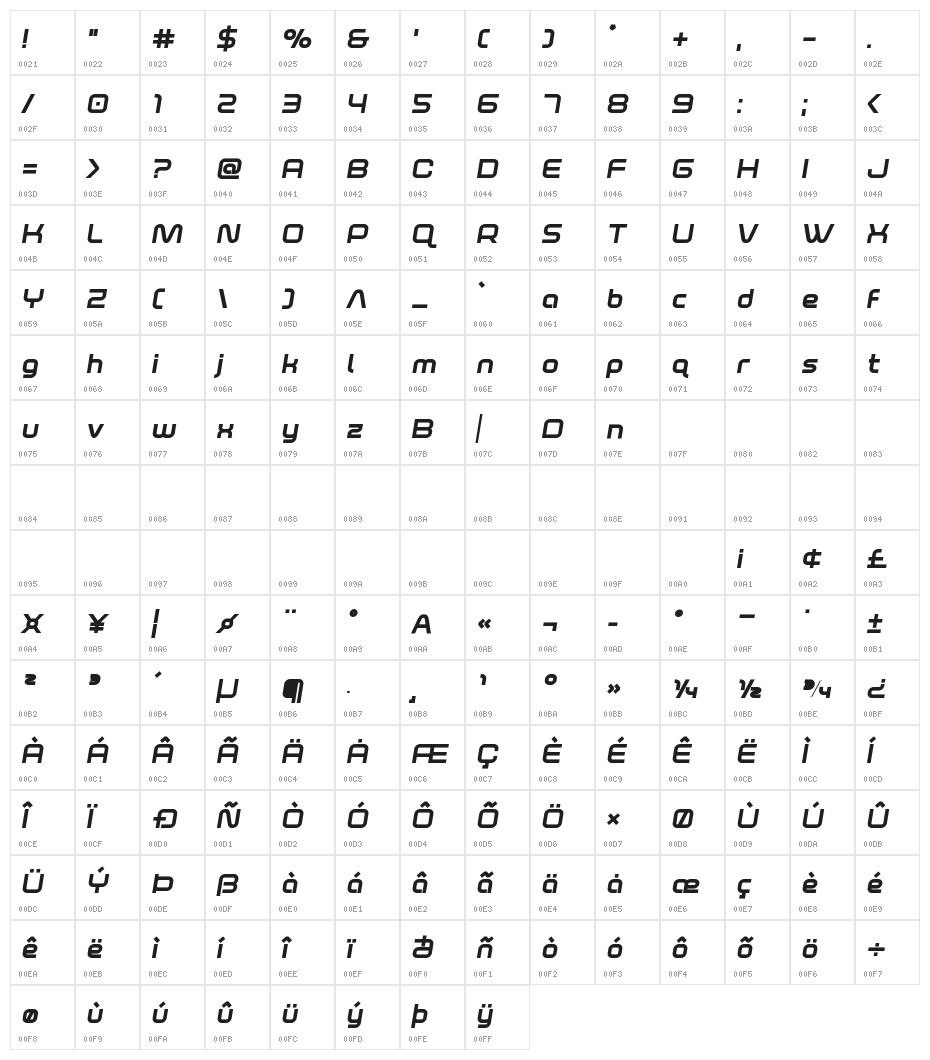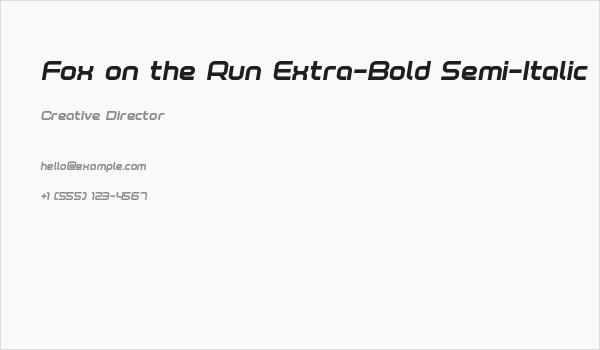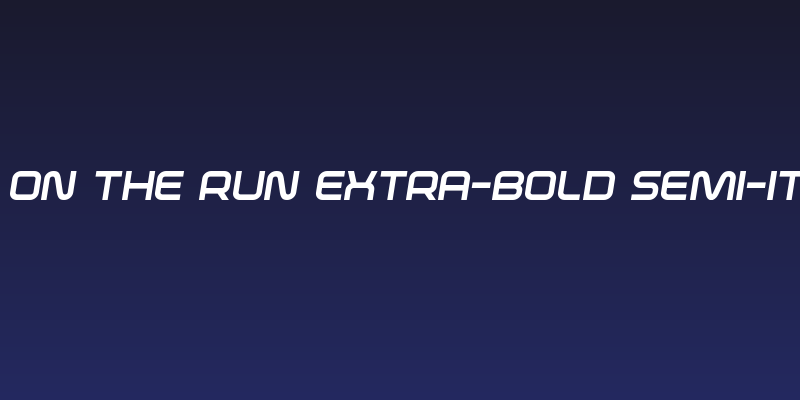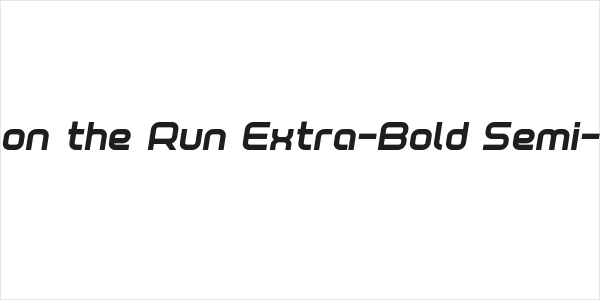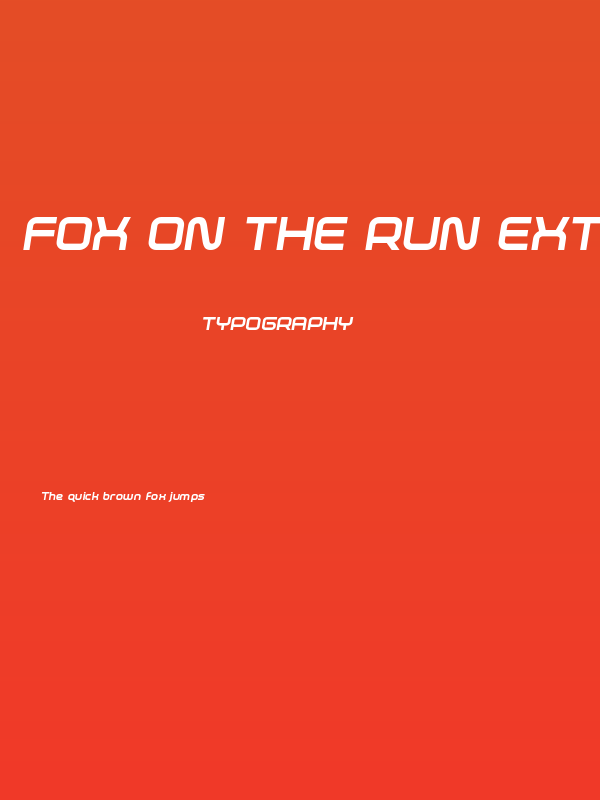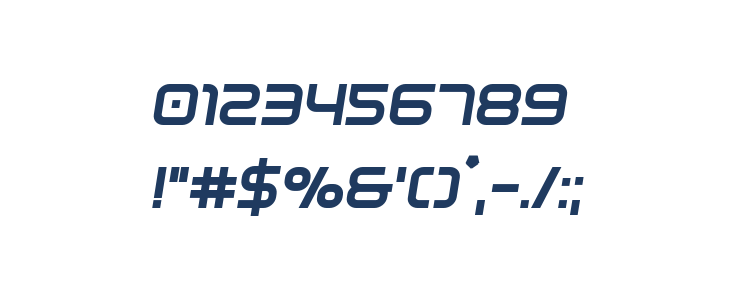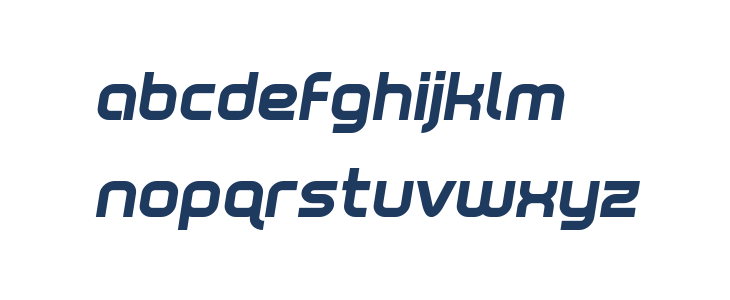
Fox on the Run Extra-Bold Semi-Italic Font
Fox on the Run Extra-Bold Semi-Italic Description
This font features a bold and semi-italic style with a modern, sleek appearance. The characters are slightly slanted, giving a dynamic and forward-moving impression. The strokes are thick and consistent, providing a strong visual impact. The font maintains a uniform width across all characters, contributing to its clean and structured look. The rounded edges soften the overall appearance, making it approachable while retaining a sense of professionalism. The spacing between characters is normal, ensuring readability without sacrificing style.
| Proposed Projects | Ideal for branding, advertising, and headlines where a strong, modern impact is desired. |